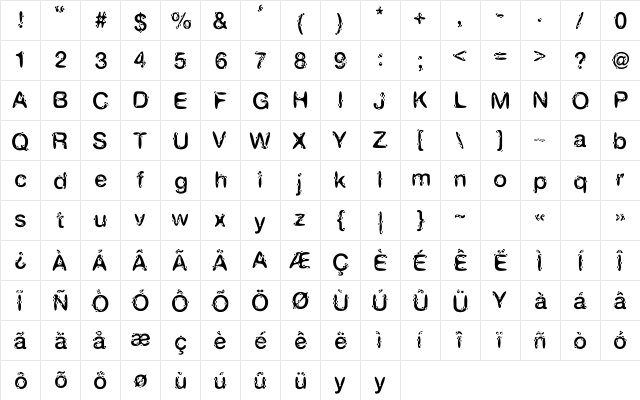
COVID-SY Regular
| Designer | Selcuk Yilmaz |
Design Context for COVID-SY Typeface
COVID-SY is a composed and adaptable typeface that performs quietly and consistently across a wide range of design contexts.